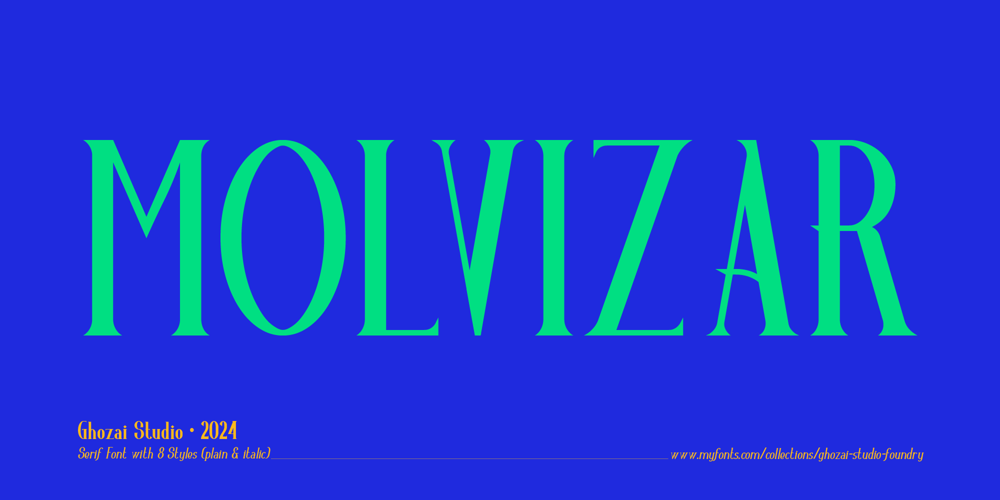
Molvizar Font Family was designed by Manzur Ghozaali and published by Ghozai Studio. Molvizar contains 8 styles and family package options. Molvizar is a serif font that comes with 8 styles (4 plain and 4 true italic styles). Combining a bold and thin stroke to give a high contrast and personality for the font, and bring fresh, lively features to its design. With a wide range of styles, Molvizar is suitable for any design project such as luxury design (hotel logo, restaurant menu, restaurant poster or web, wedding invitation), fashion, band poster, headline, and many others.